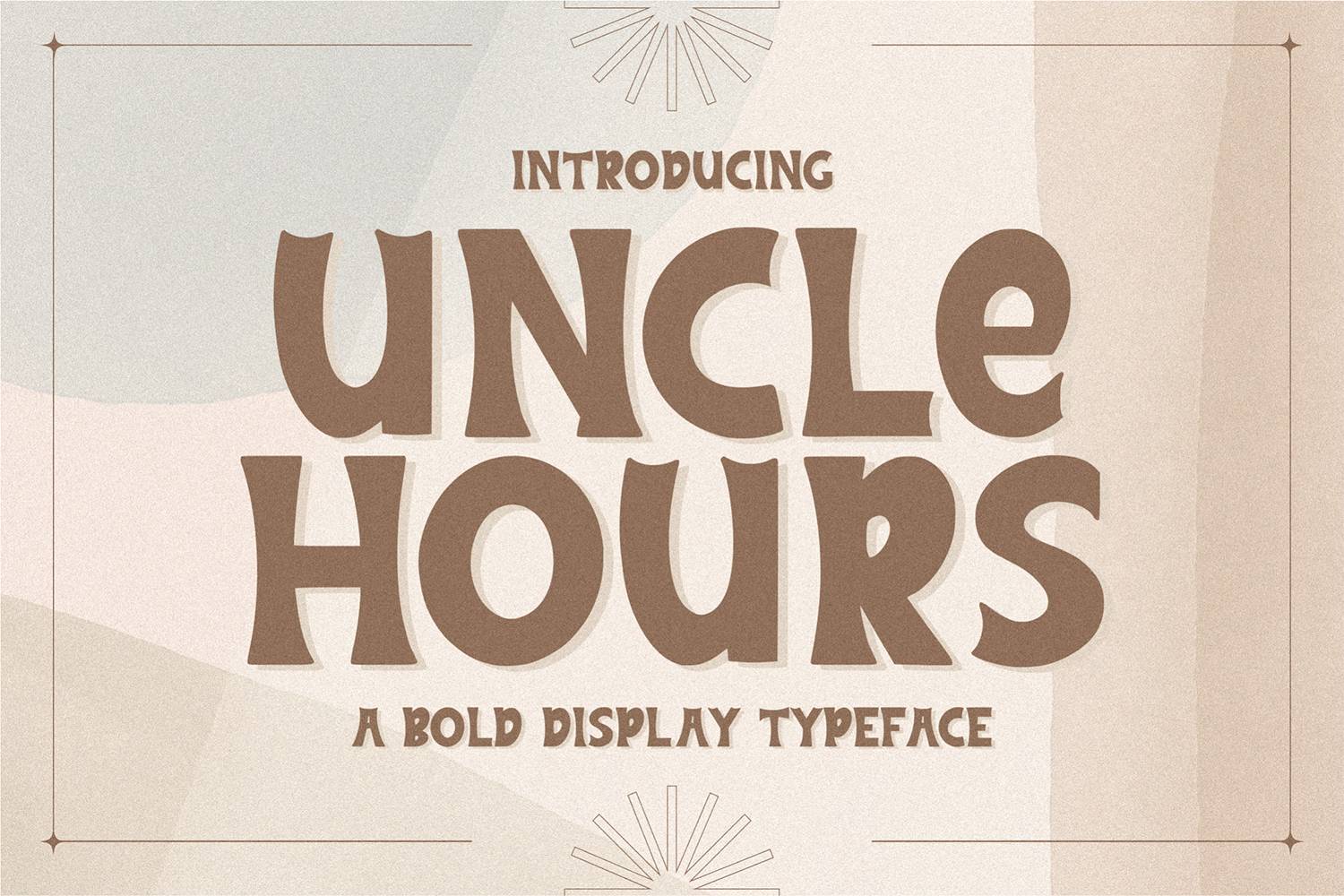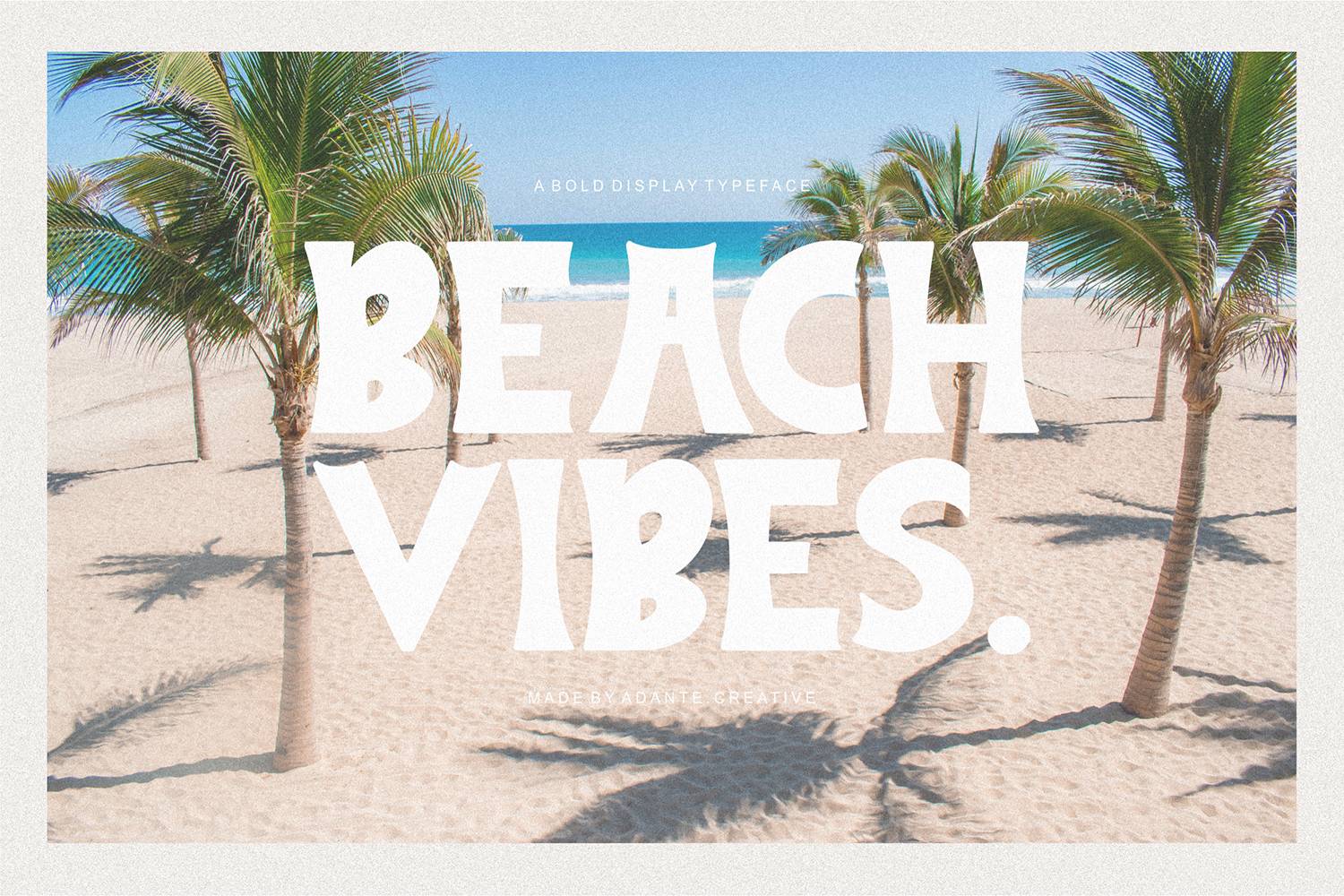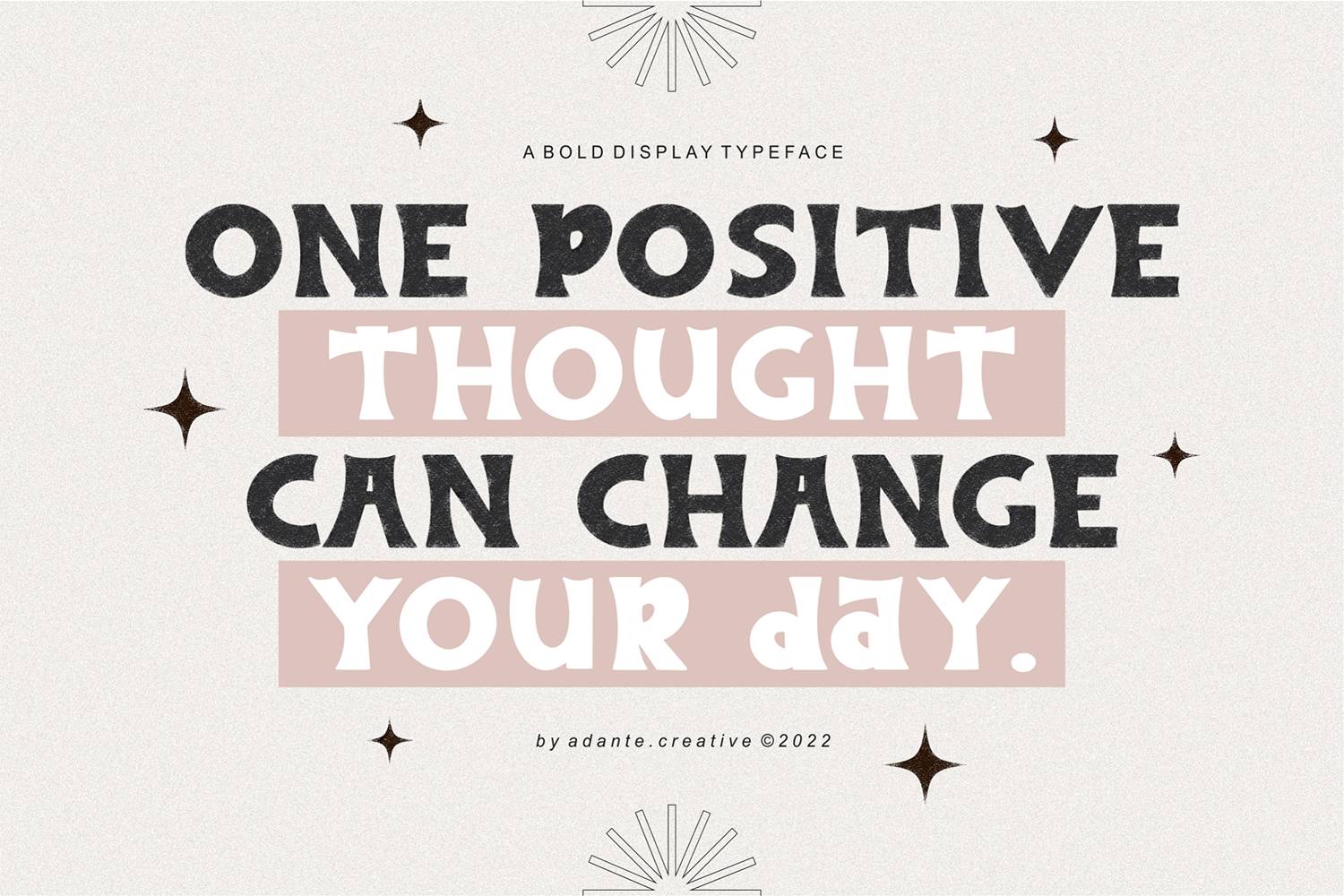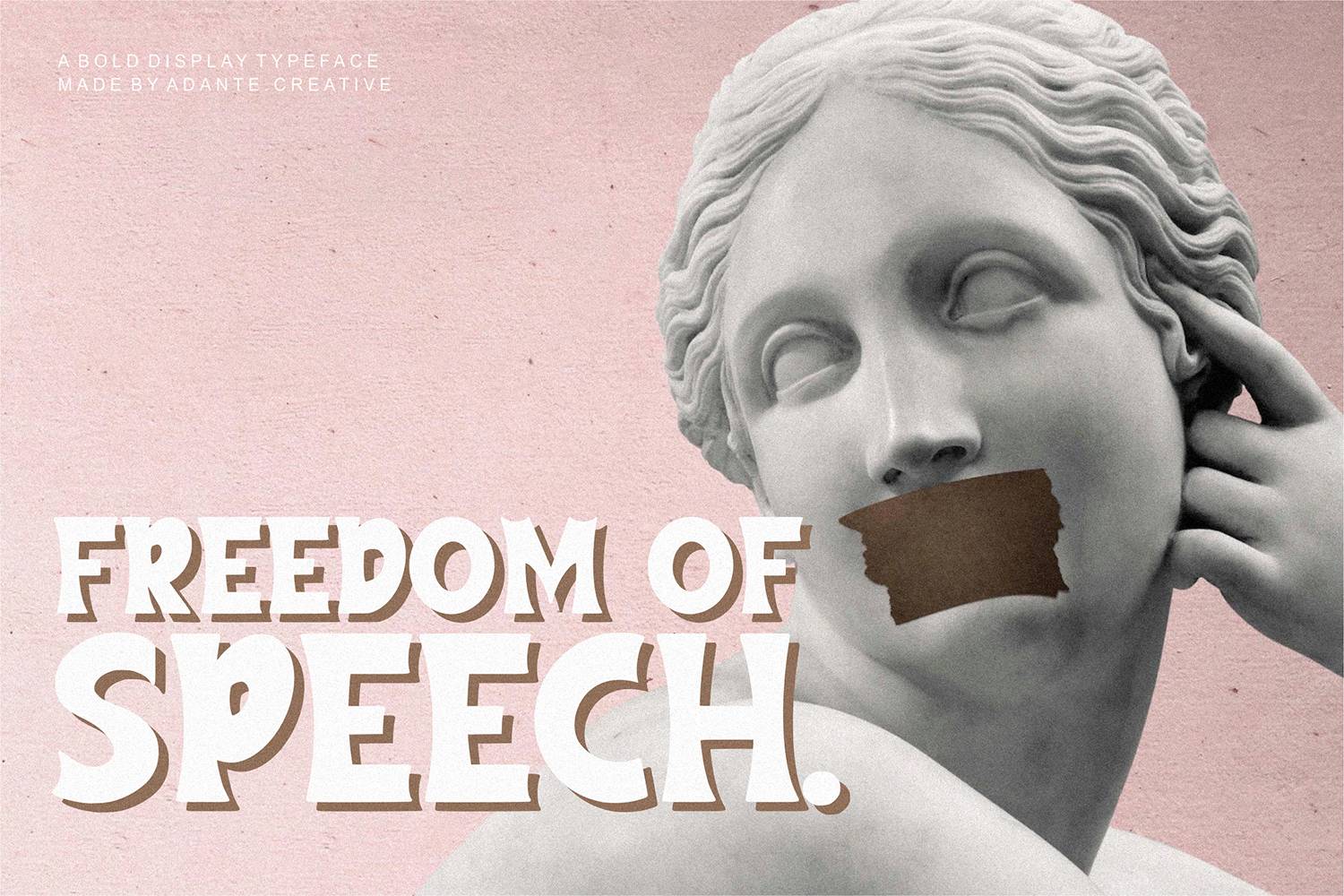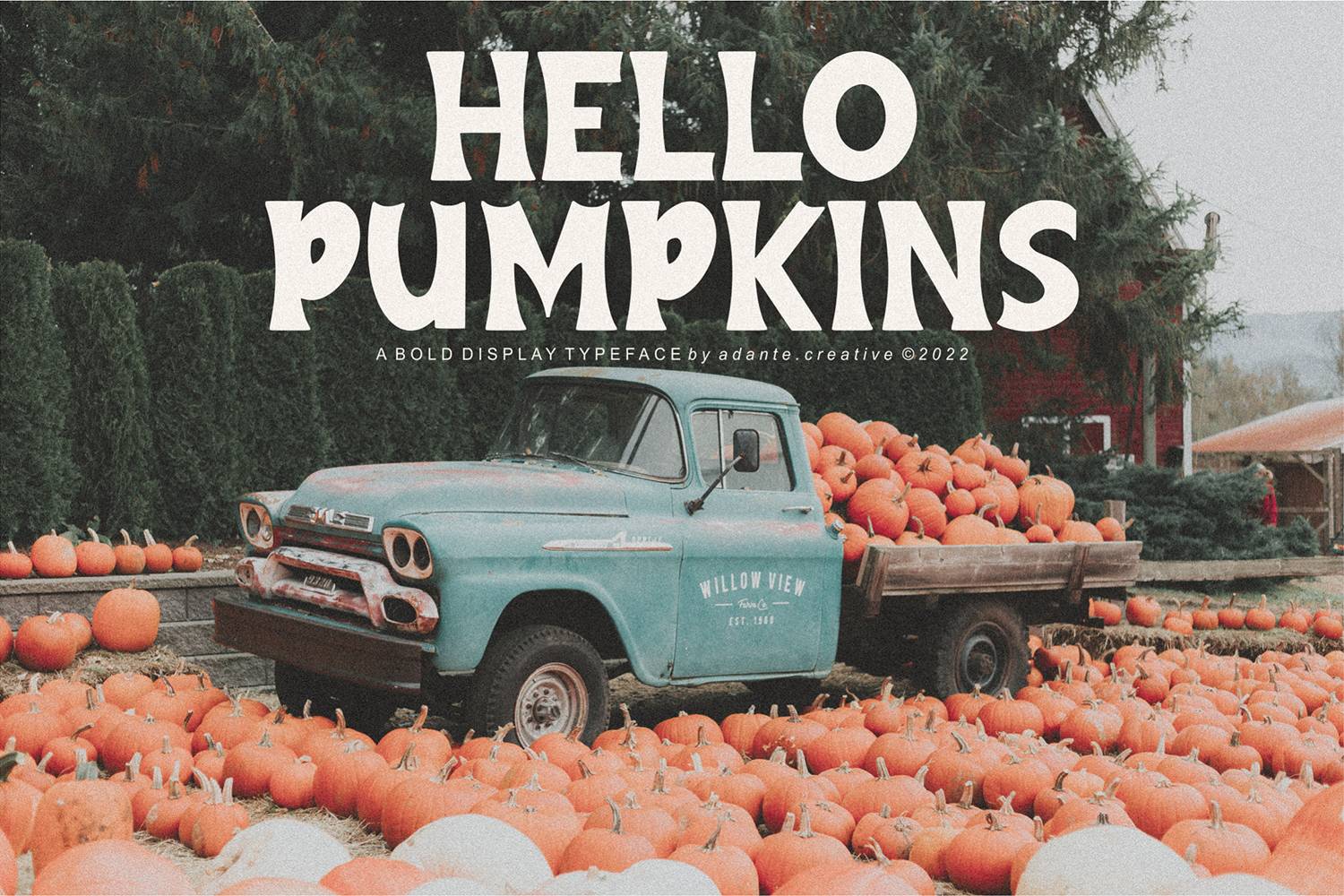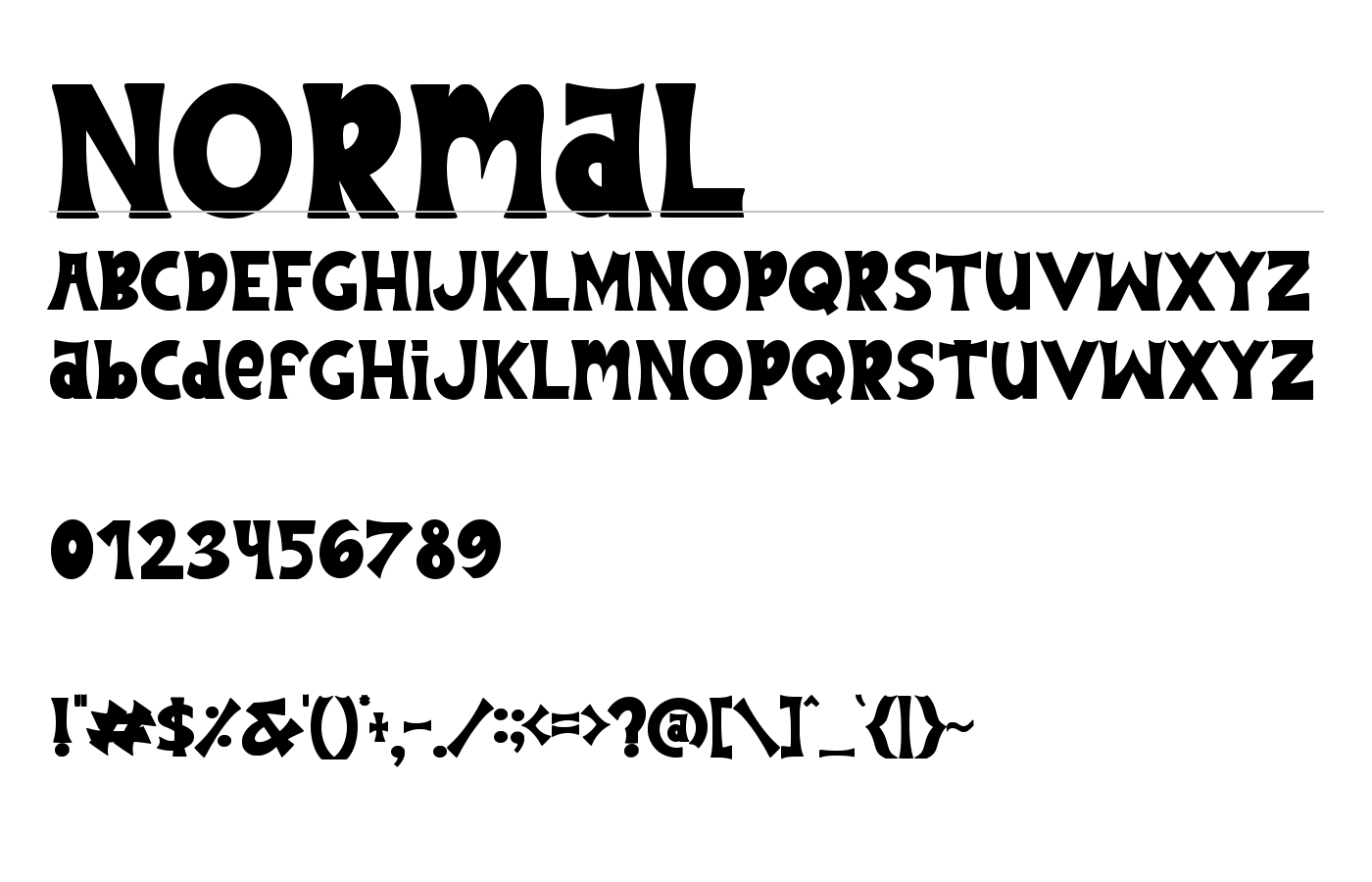
Uncle Hours is a bold, playful serif font with a quirky, hand-crafted feel that features thick, chunky strokes and flared serifs. Its unique letterforms with slight irregularities convey a fun, informal personality, making it ideal for eye-catching headlines, posters, and creative branding that wants to stand out with a friendly and approachable vibe. This font works well in designs needing a strong, energetic presence without losing charm or character.
Uncle Hours Font
About Uncle Hours Font
| Font family | Uncle Hours Font |
| Release date | 2022-08-28 |
| Designer | Adante.Creative |